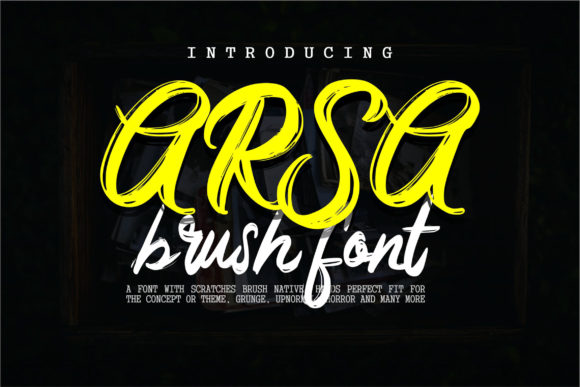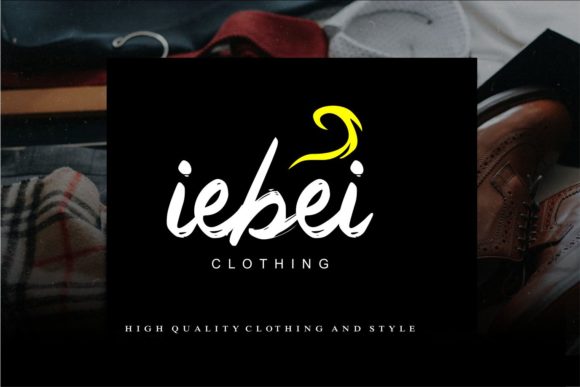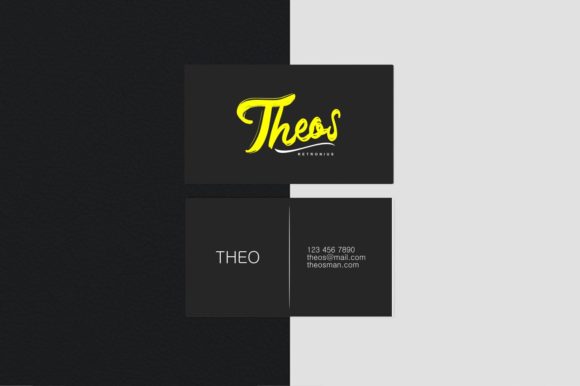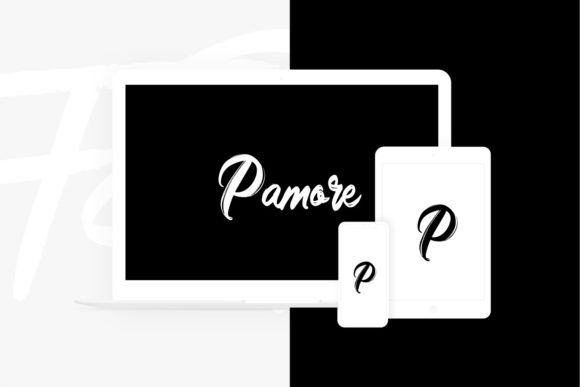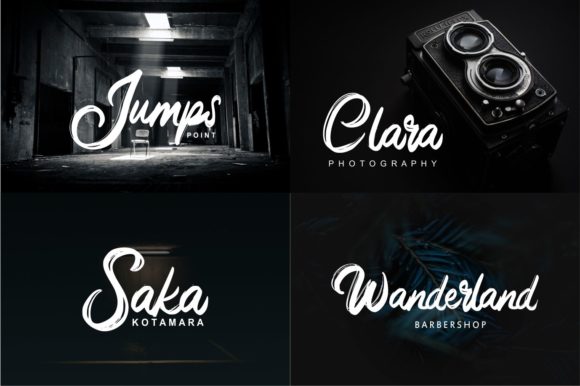
Arsa Font
About Arsa Font
Arsa is a fun and bold brush script with a cool twist. It’s the idea font for adding that authentic and raw vibe to your next design project.